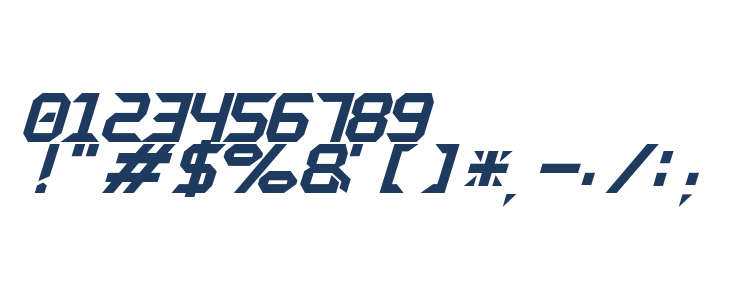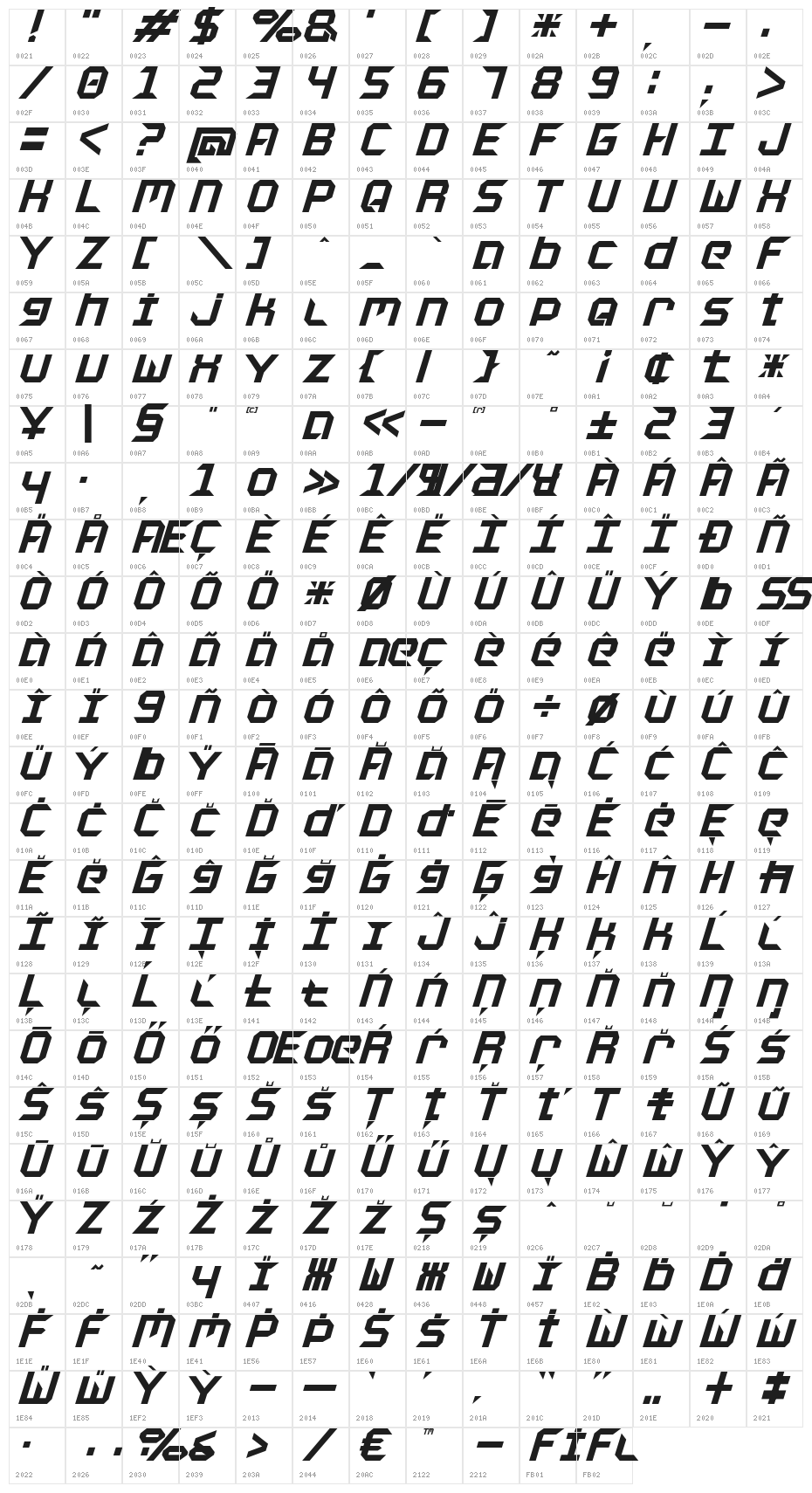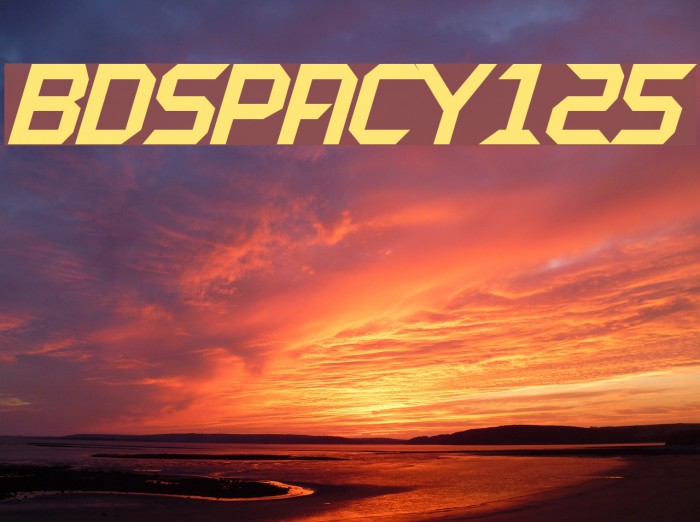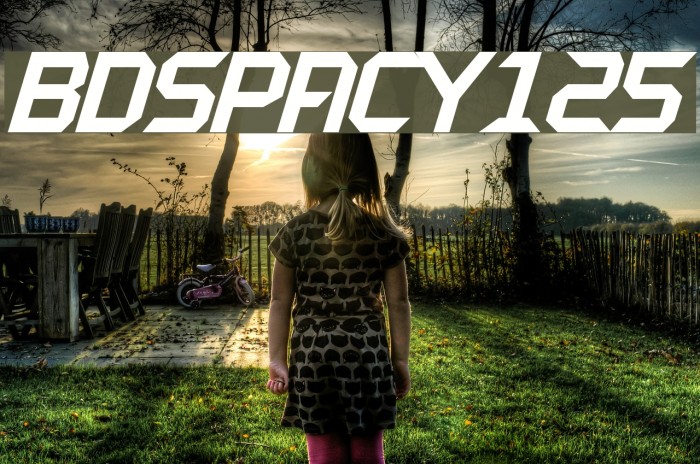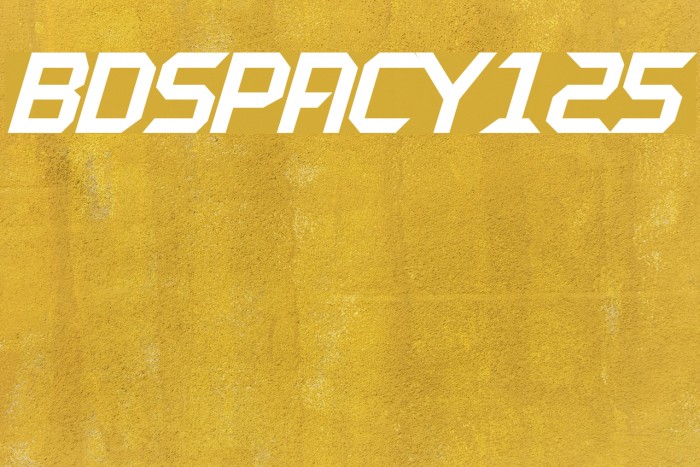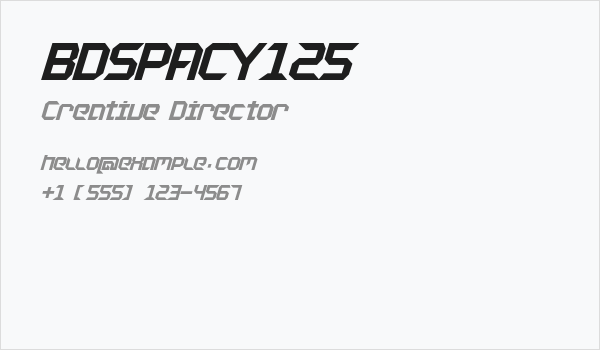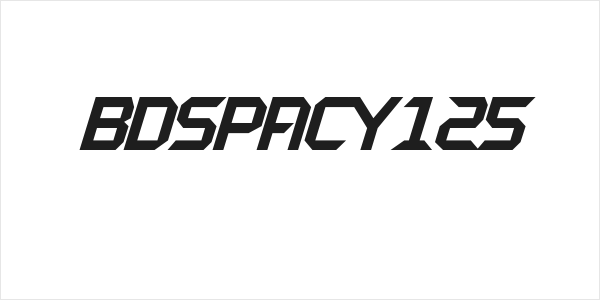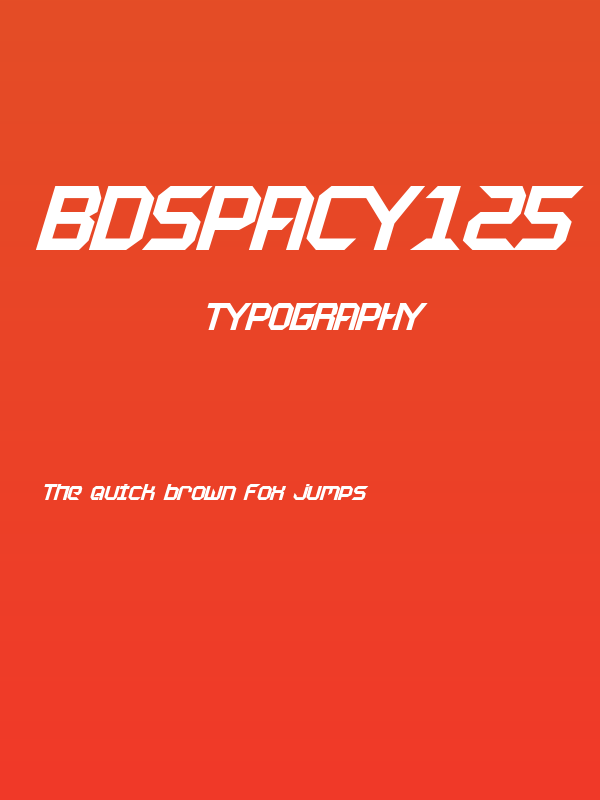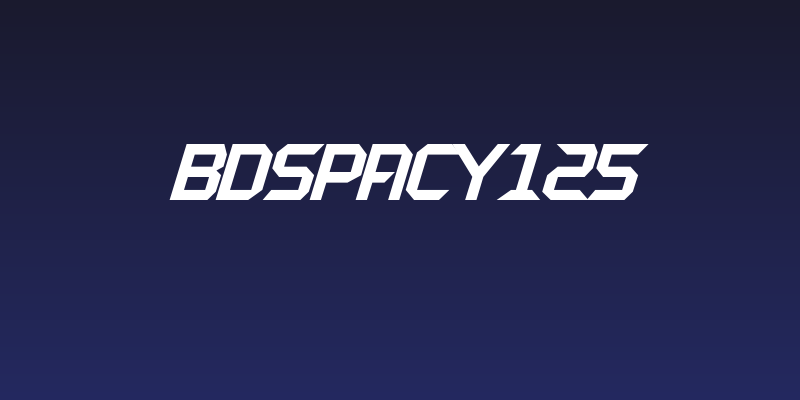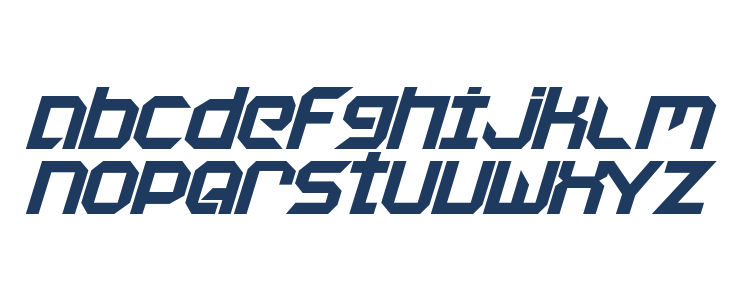
BDSPACY125 Font
BDSPACY125 Description
This font exhibits a bold and futuristic style, characterized by its angular and geometric letterforms. The uppercase and lowercase letters maintain a consistent slant, giving a dynamic and forward-moving appearance. The numbers and special characters follow the same angular design, ensuring uniformity across all glyphs. The sharp edges and clean lines contribute to its modern aesthetic, making it suitable for projects that require a contemporary and edgy look. The font's distinct style is ideal for creating impactful headlines or logos that demand attention.
Proposed ProjectsIdeal for sci-fi themed designs, technology branding, video game titles, and modern advertising campaigns.